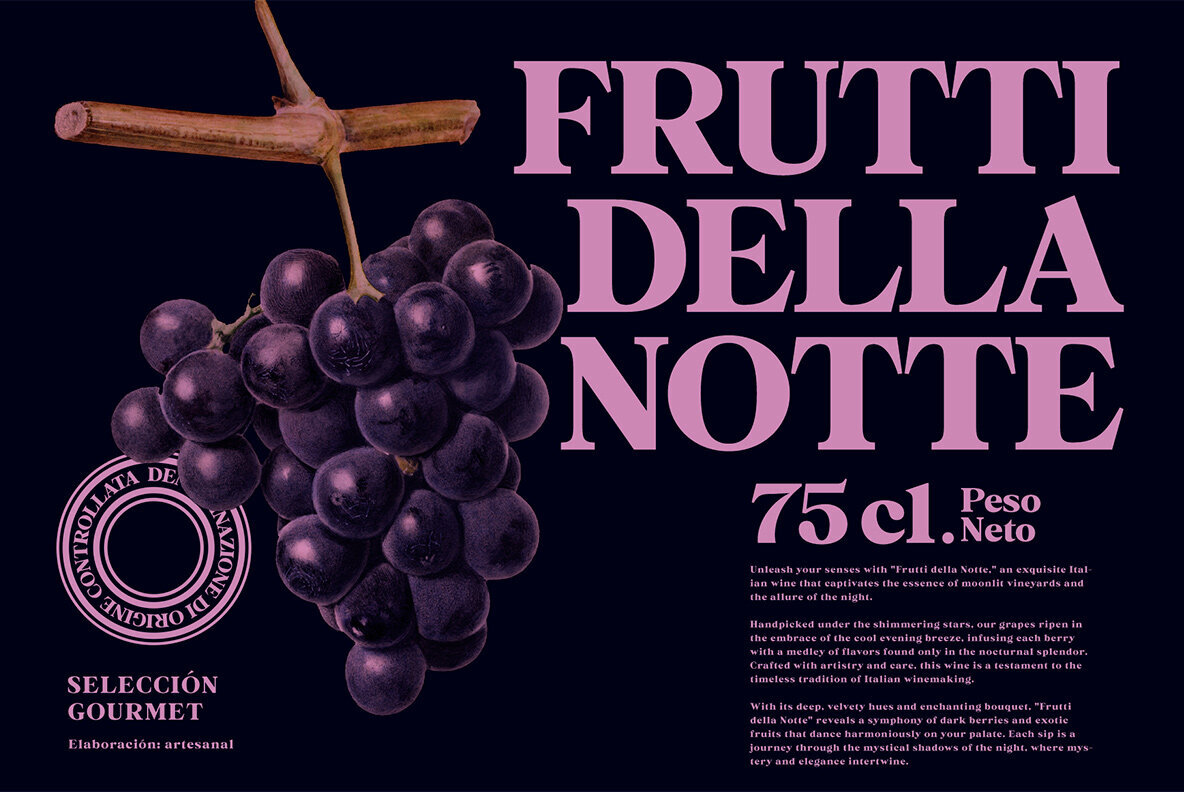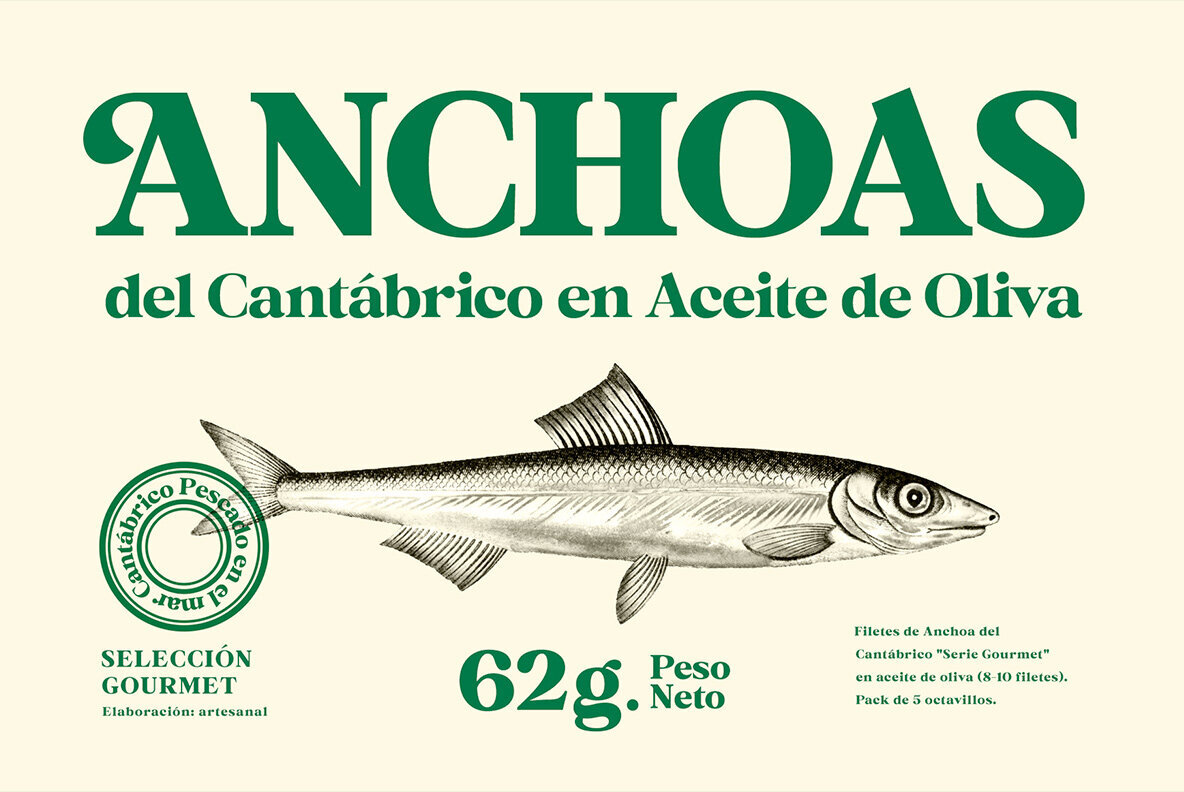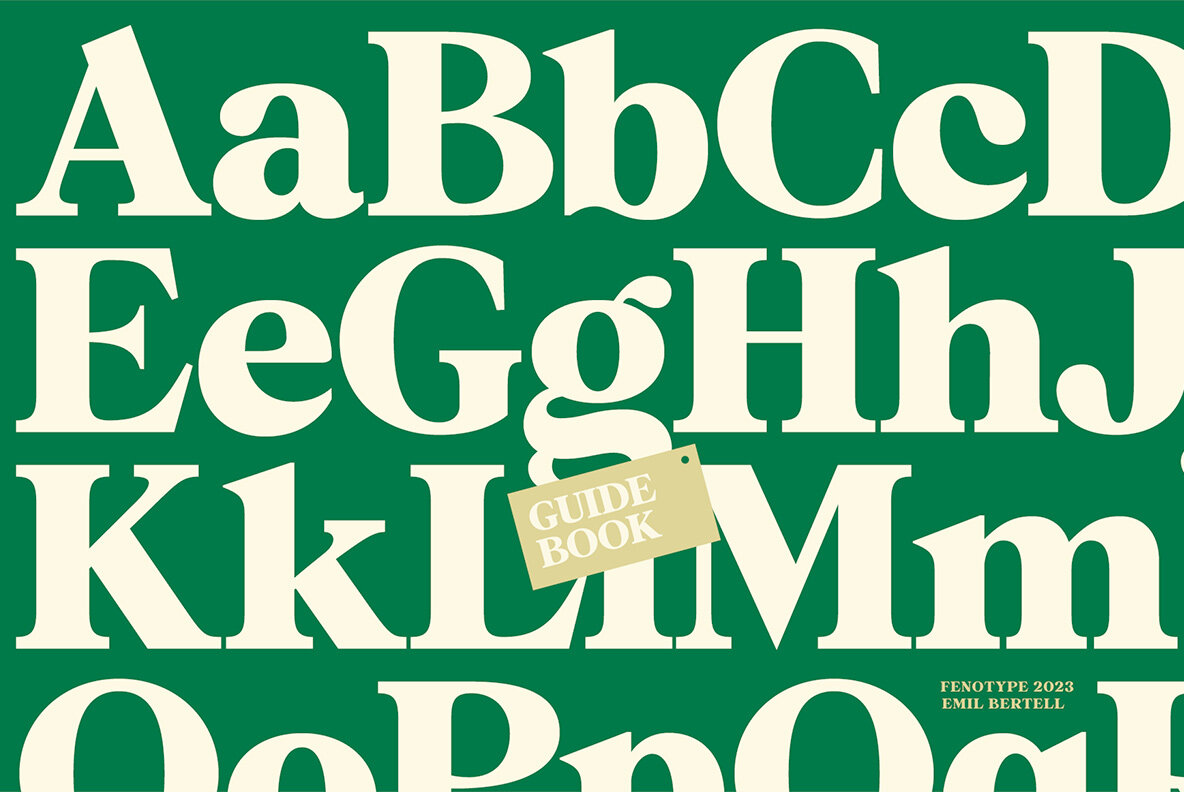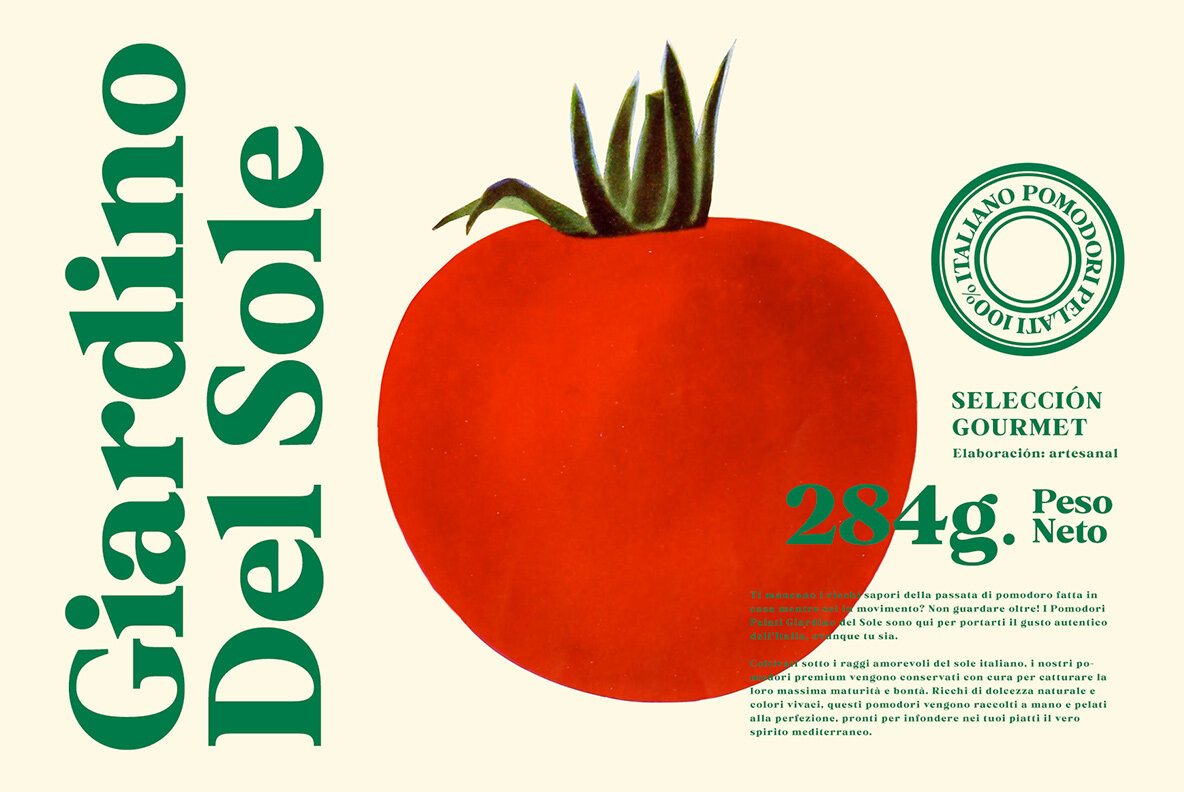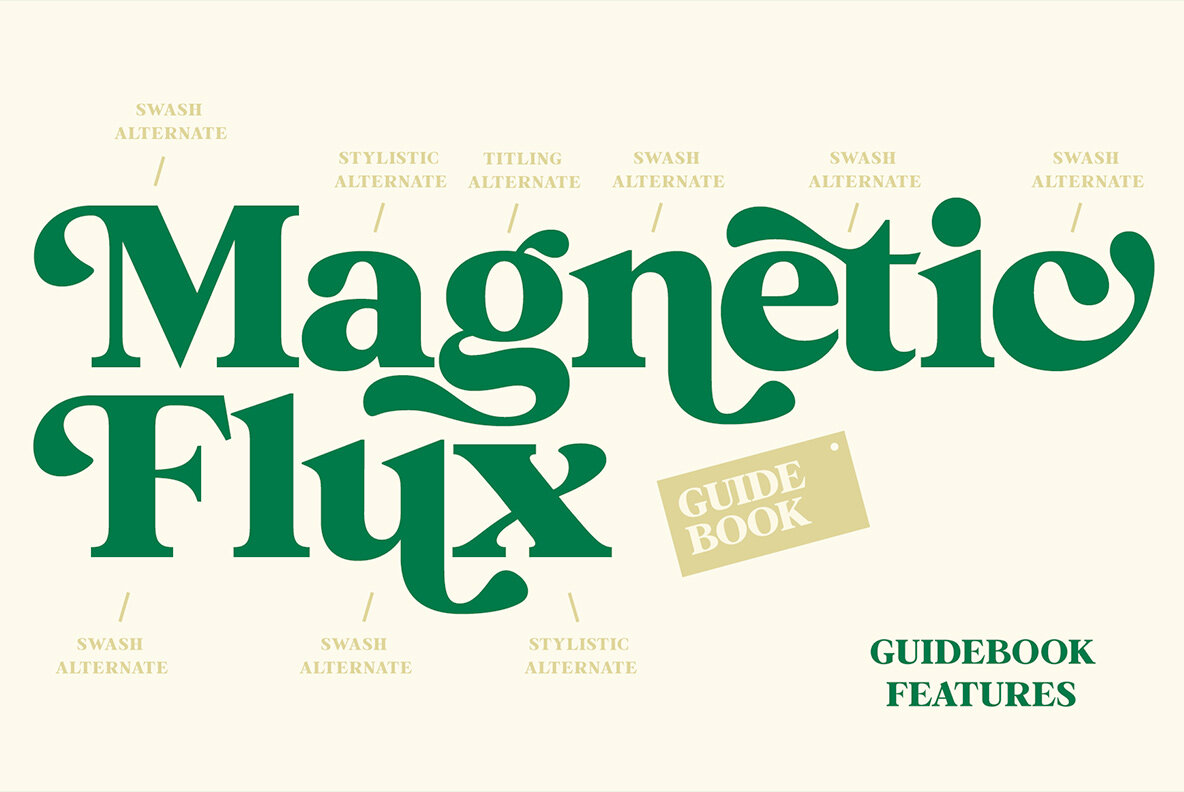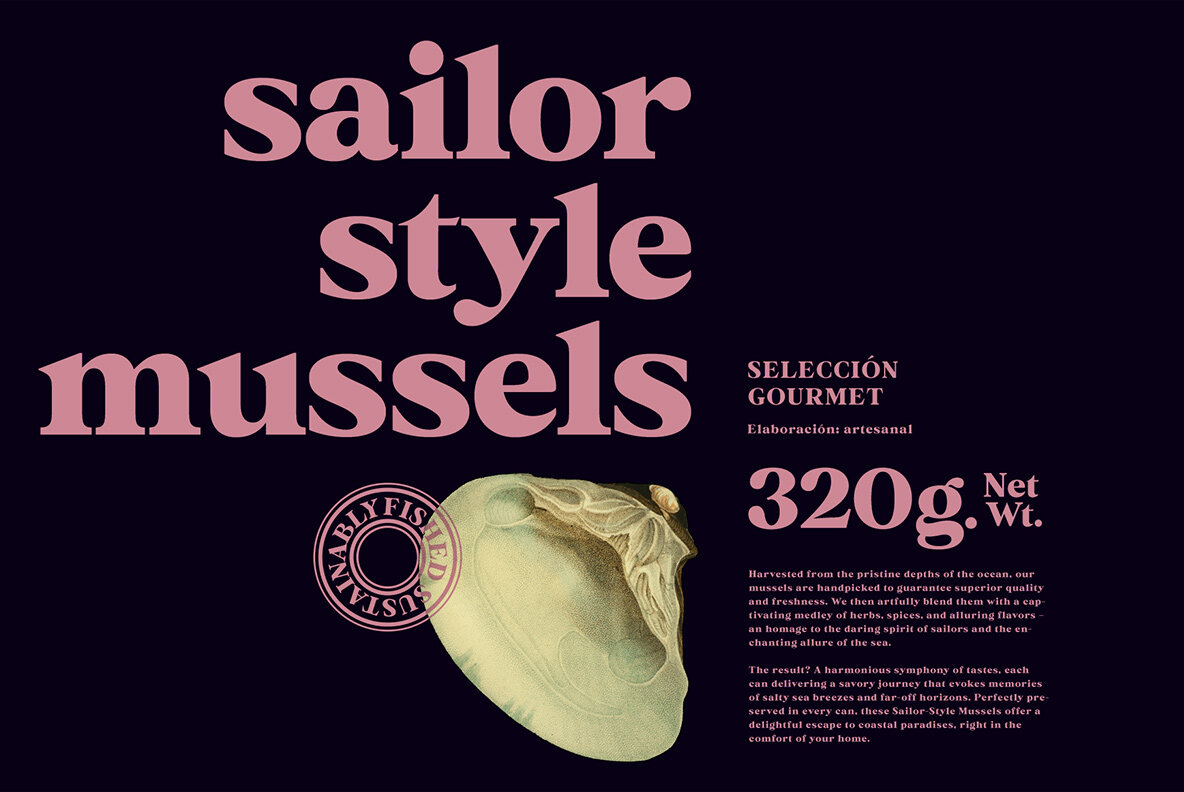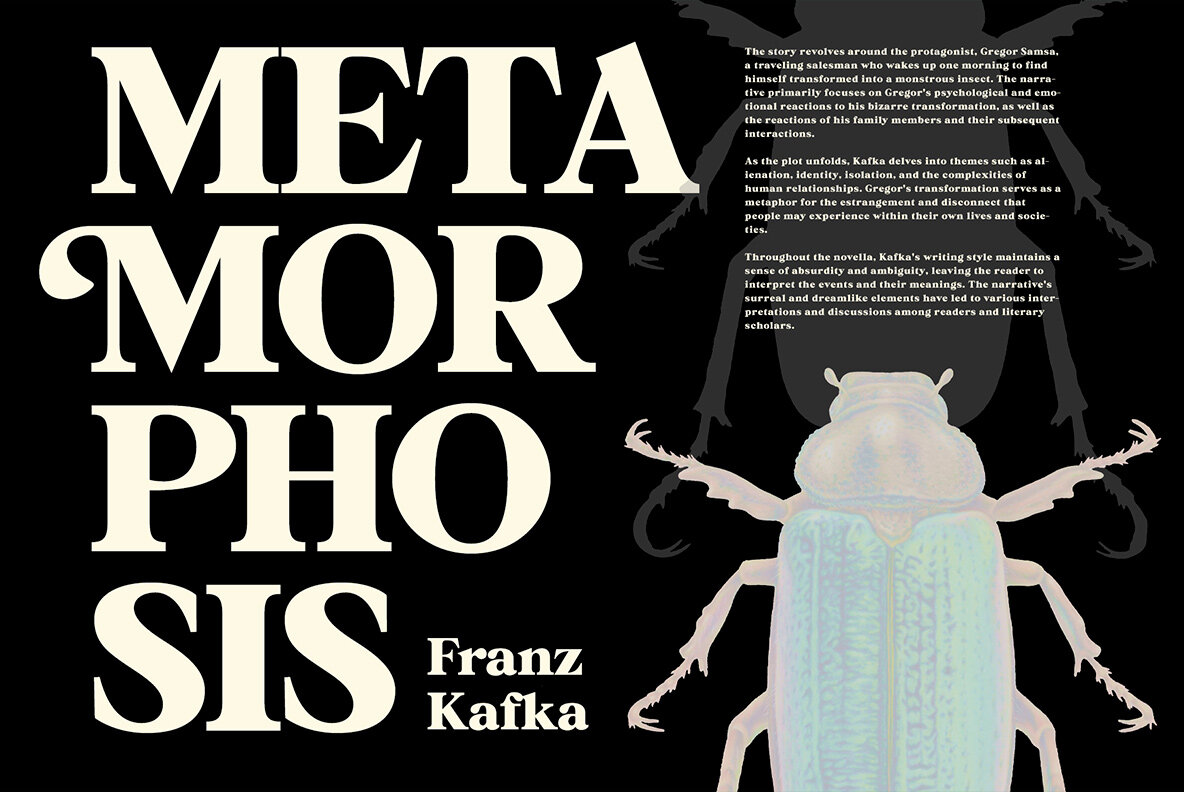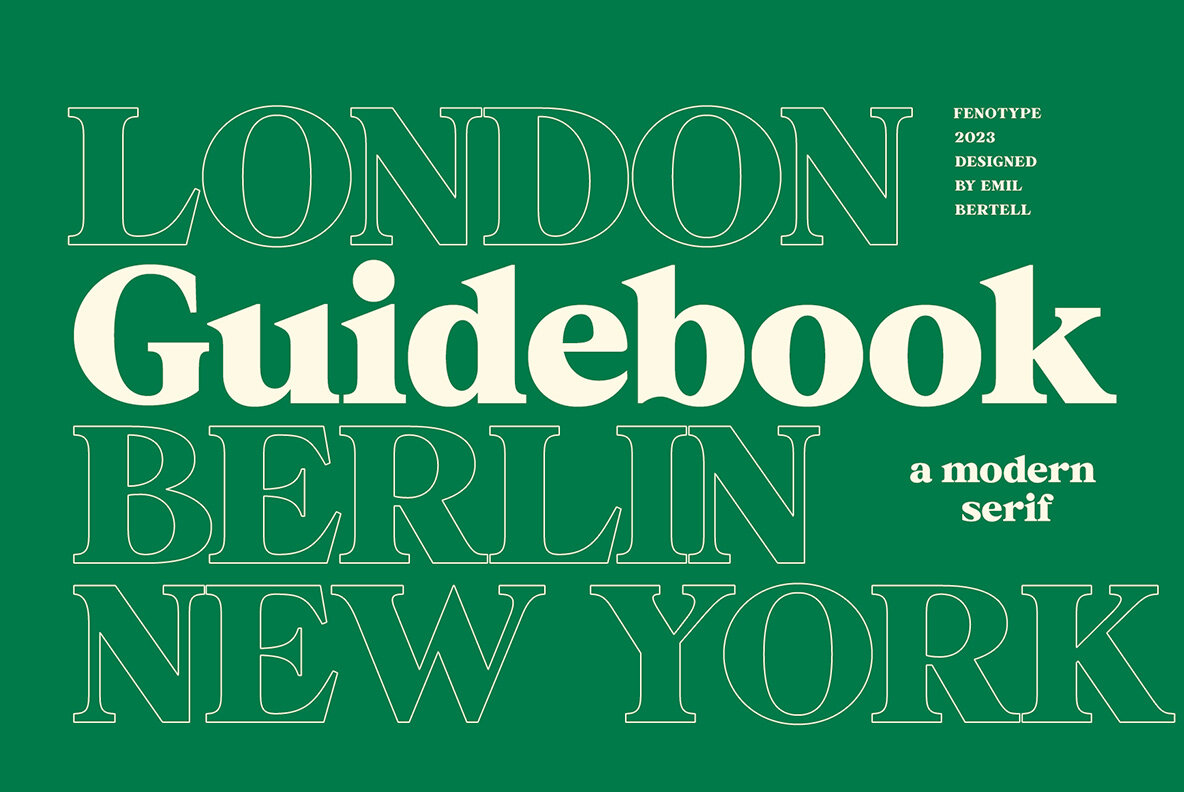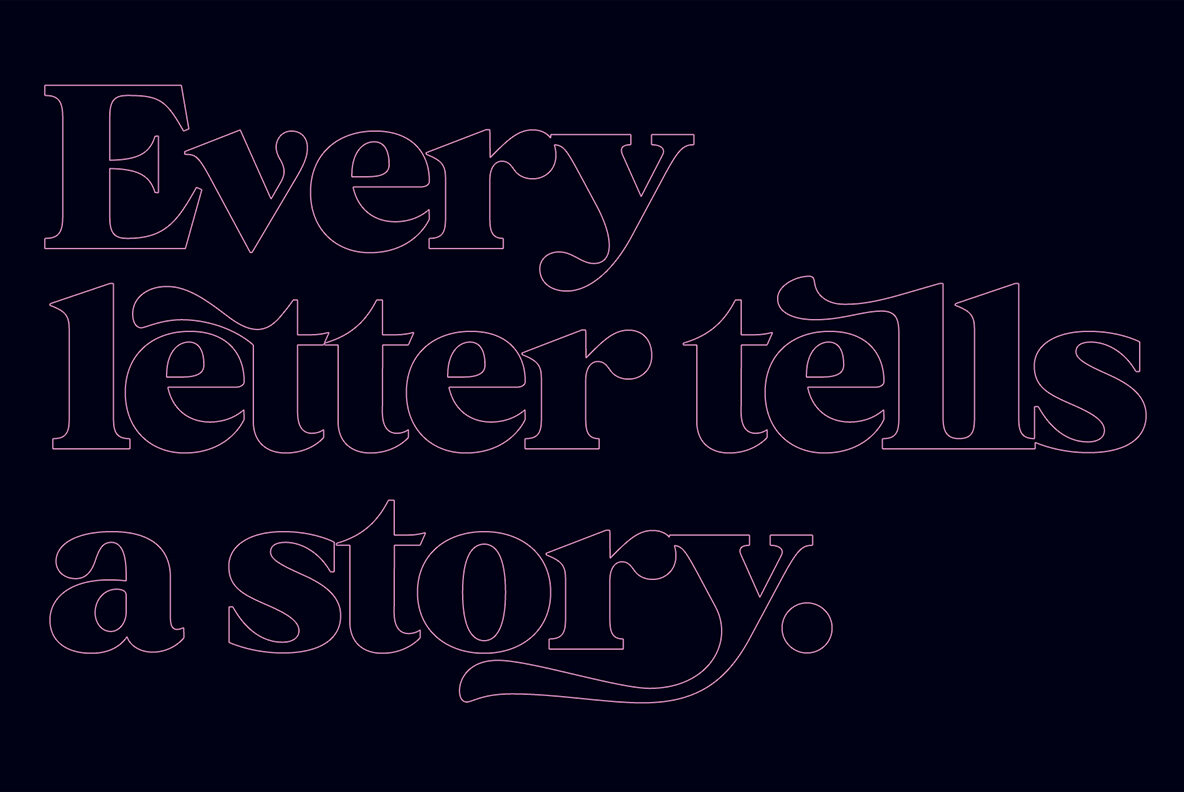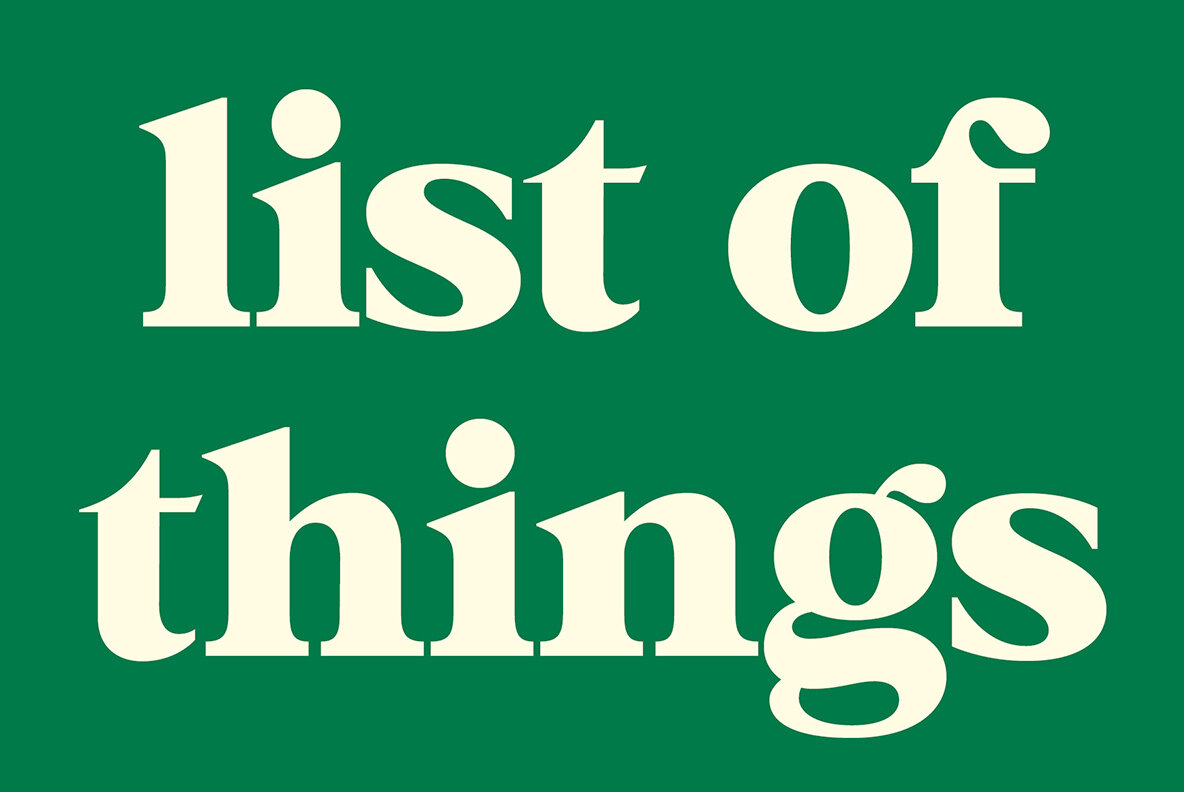
Guidebook Font
Guidebook Regular
Paying homage to the charm of the old-world, Guidebook is a masterfully crafted vintage style serif font that is the epitome of both confidence and nonchalance. Its clean, sturdy features evoke a sense of familiarity and nostalgia, radiating credibility through every bold stroke. Artfully designed by Emil Bertell, the Guidebook font effortlessly balances modern design needs with a classic, timeless feel. Guidebook comes fully equipped with Swash and Stylistic, taking your graphic design and marketing projects to the next level. This serif font is more than a mere typeface; it's a bridge that connects contemporary graphic design to the robust, hands-on feel of vintage typography. Make no mistake, Guidebook is the optimal choice, whether you're a graphic designer seeking an authentic vintage font, or a marketing firm looking to add elegance and nostalgia to your brand designs. Crafting your story with Guidebook not only evokes a warm sense of familiarity but also stands as a testament to your respect for time-honored design principles. Remember, with Guidebook, you're not just choosing a font, you're embracing a unique stylistic approach and redefining vintage design norms.Introducing Guidebook: Vintage Serif Font by Emil Bertell - Your Ultimate Solution for Bold, Nostalgic Designs